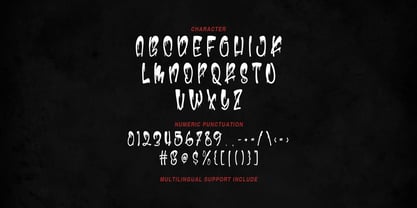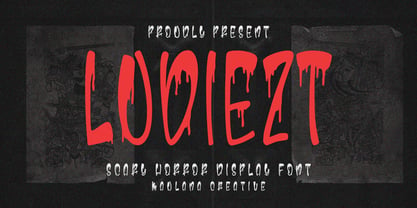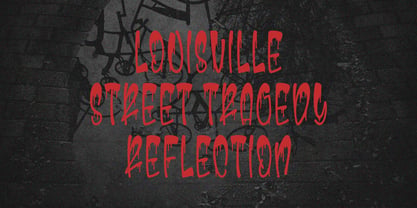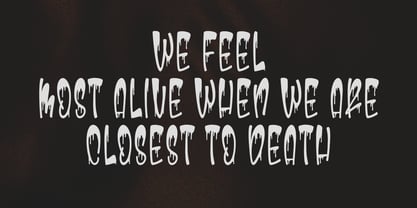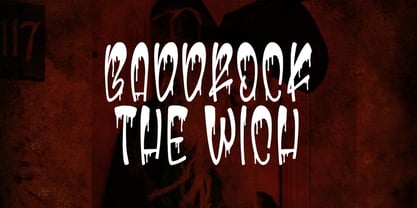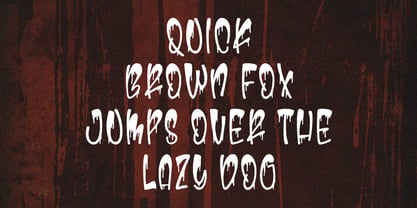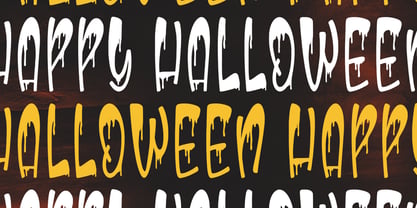
MC Ludiezt
by Maulana Creative
The MC Ludiezt Font Family was designed by Gilang Maulana and published by Maulana Creative. MC Ludiezt contains 1 styles. More about this family
Ludiezt is a captivating horror display font characterized by its distinctive, creepy dripping effect. Ideal for horror, zombie, apocalypse, thriller, Halloween, and sci-fi post-apocalyptic design projects, this font features fluid-textured letterforms that evoke the imagery of dripping blood or slime, delivering a terrifying yet artistic aesthetic. With its bold and unique characters, Ludiezt creates an eerie atmosphere that ensures your designs not only stand out but also leave a lasting impression. This font is perfect for Halloween-themed designs, zombie narratives, thriller films, and branding associated with apocalyptic themes, making it a versatile choice for any designer looking to evoke fear and intrigue in their work.
Designers: Gilang Maulana
Foundry: Maulana Creative